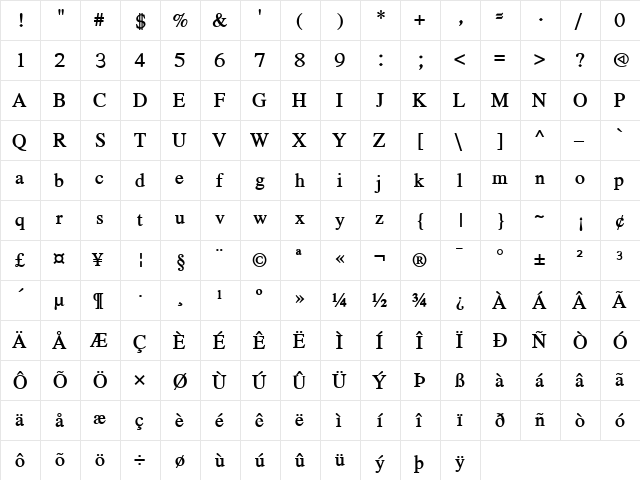
Masinahikan Dene SemiBold Font Preview
Masinahikan Dene SemiBold
Masinahikan Dene SemiBold Font Details
| Style | SemiBold |
| Foundry | Chris Harvey (languagegeek.com) |
| Designer | Chris Harvey |
Design Context for Masinahikan Dene Typeface
Masinahikan Dene takes a measured approach to typography — its balanced proportions and neutral character make it a reliable workhorse for both digital and print work. Its bold stroke weight gives it real presence on the page.